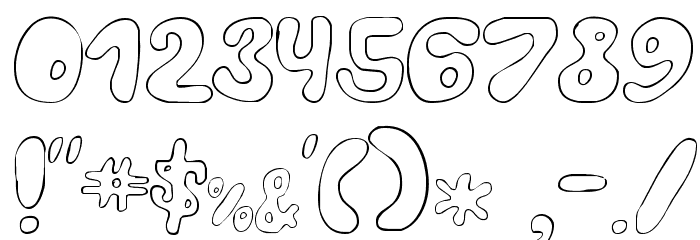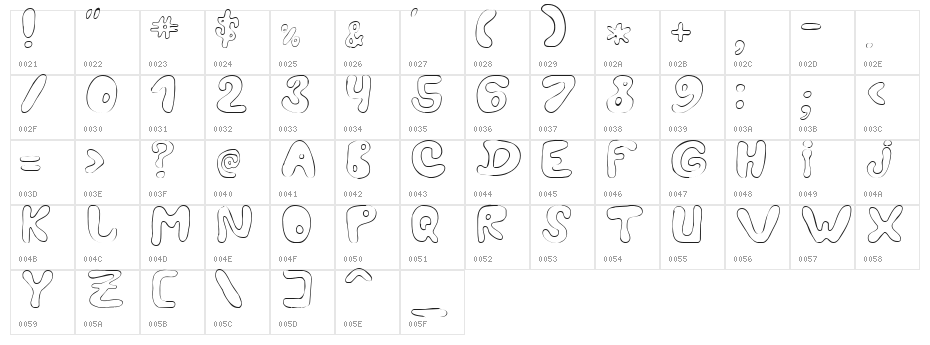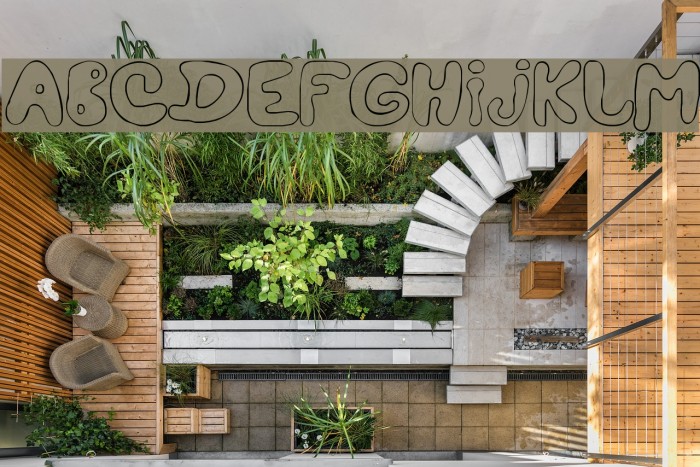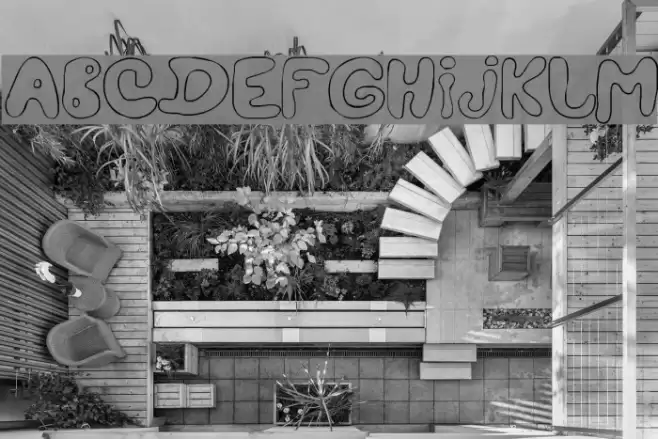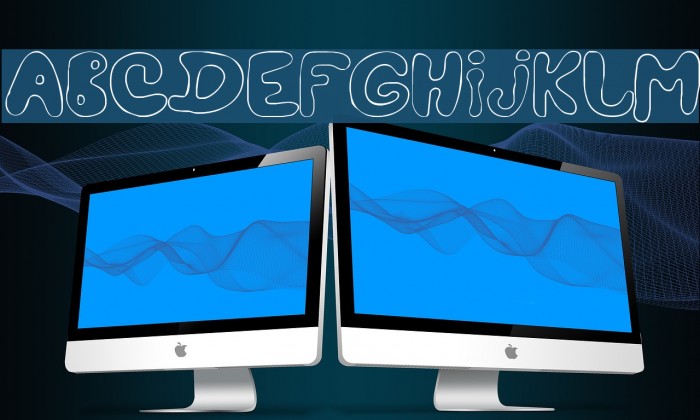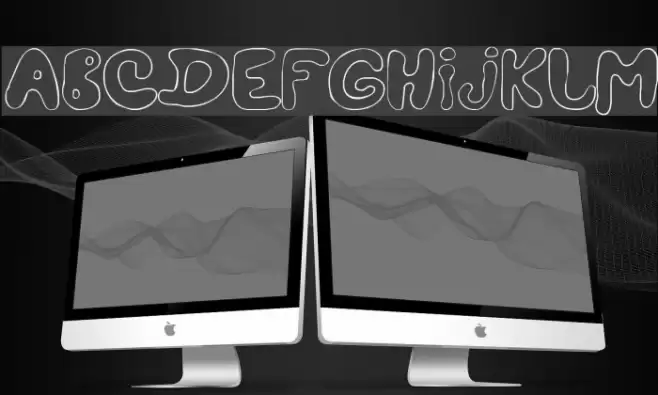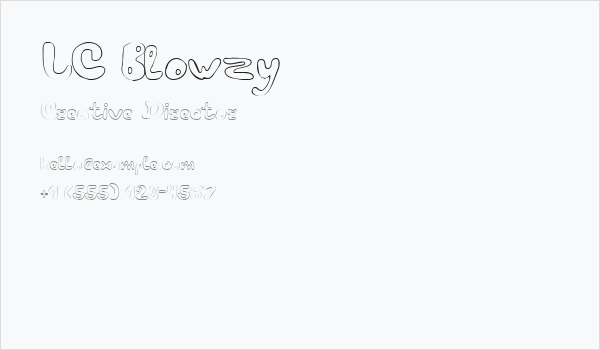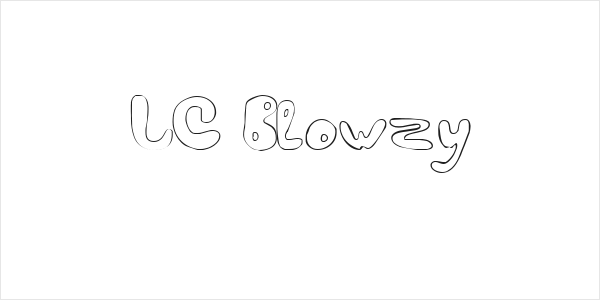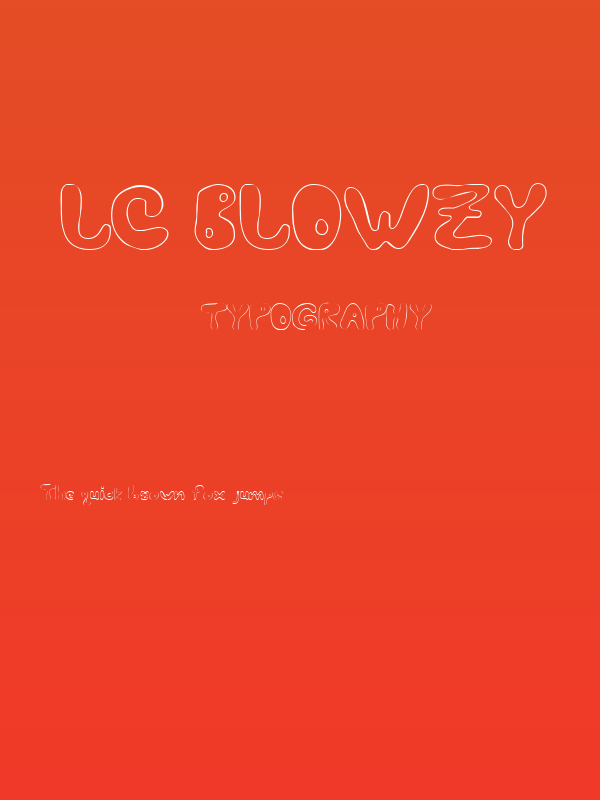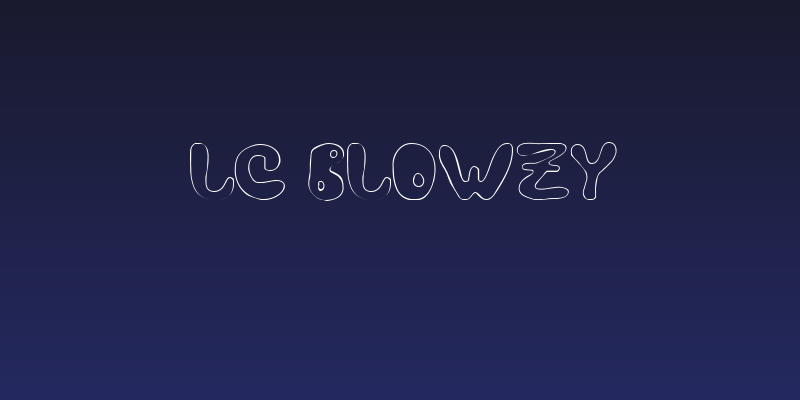
LC Blowzy Font
LC Blowzy Description
This playful and whimsical font features a bubbly, rounded design that exudes a sense of fun and creativity. The characters are outlined with a consistent stroke, giving them a cartoon-like appearance. The uppercase and lowercase letters maintain a uniform style, with each character exhibiting a unique, slightly exaggerated form. The numbers and special characters follow the same playful theme, making this font ideal for projects that require a lighthearted and engaging touch. Its distinct style is perfect for capturing attention and adding a touch of personality to any design.
Overall StylePlayful
Proposed ProjectsIdeal for children's books, playful branding, party invitations, and creative posters.